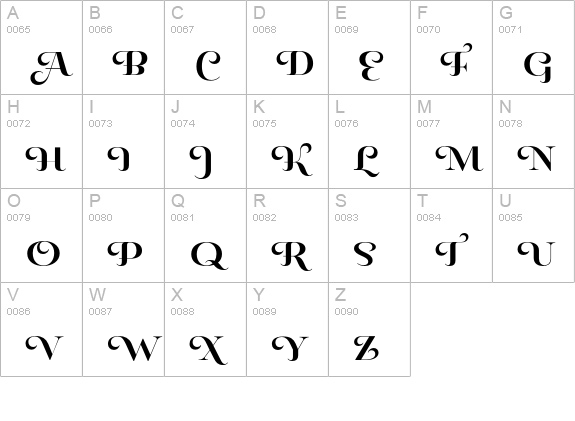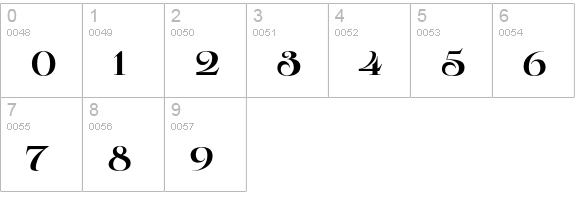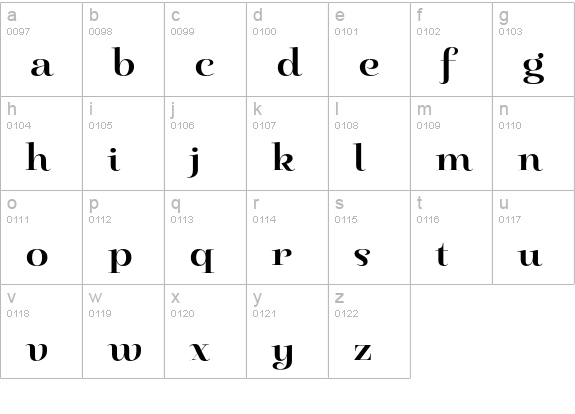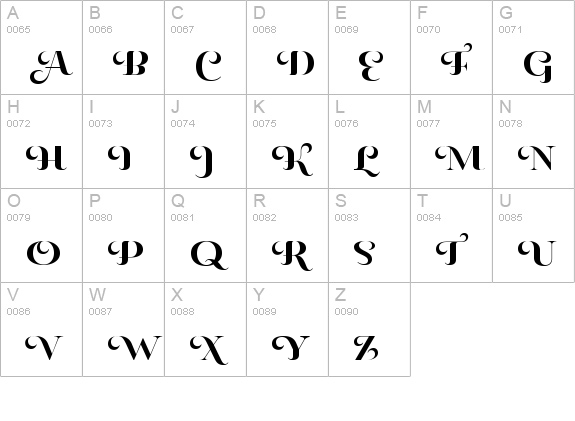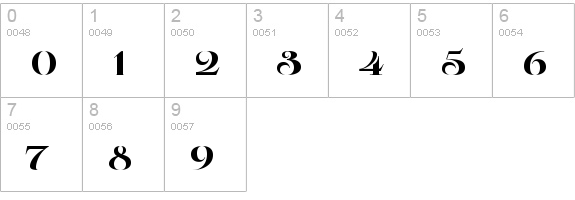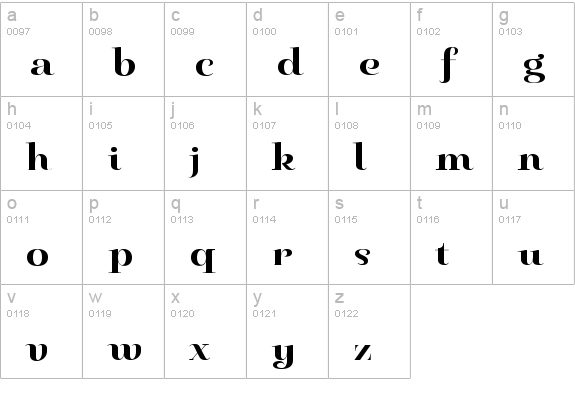
Pauline Didone Bold is a strong, high-contrast variant in the Pauline typeface family \xE2\x80\x94 well suited to headlines, attention-grabbing titles, and strong calls-to-action.
Pauline Didone Bold is a stunning and elegant font that exudes sophistication and style. With its sleek lines and classic design, this typeface is perfect for adding a touch of luxury to your projects. The bold weight of the font makes a strong statement while maintaining a sense of refinement. What sets Pauline Didone Bold apart is not just its visual appeal, but also its versatility. It is suitable for a wide range of design applications, from branding and packaging to editorial design and invitations. Whether you're looking to create a striking headline or add a touch of elegance to your body text, this font has you covered. The best part? Pauline Didone Bold is available for free download at FontsMarket.com, making it accessible to designers of all levels. Don't miss out on this opportunity to elevate your designs with this beautiful and timeless font. Download Pauline Didone Bold today and see the difference it can make in your projects.